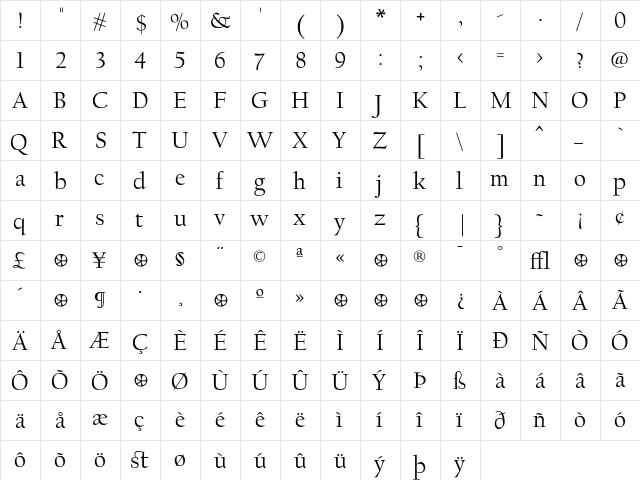
FBCalifornian Roman
Design Context for FBCalifornian Typeface
FBCalifornian offers clean, dependable letterforms without strong stylistic allegiance, making it a practical choice for designers who need flexibility.